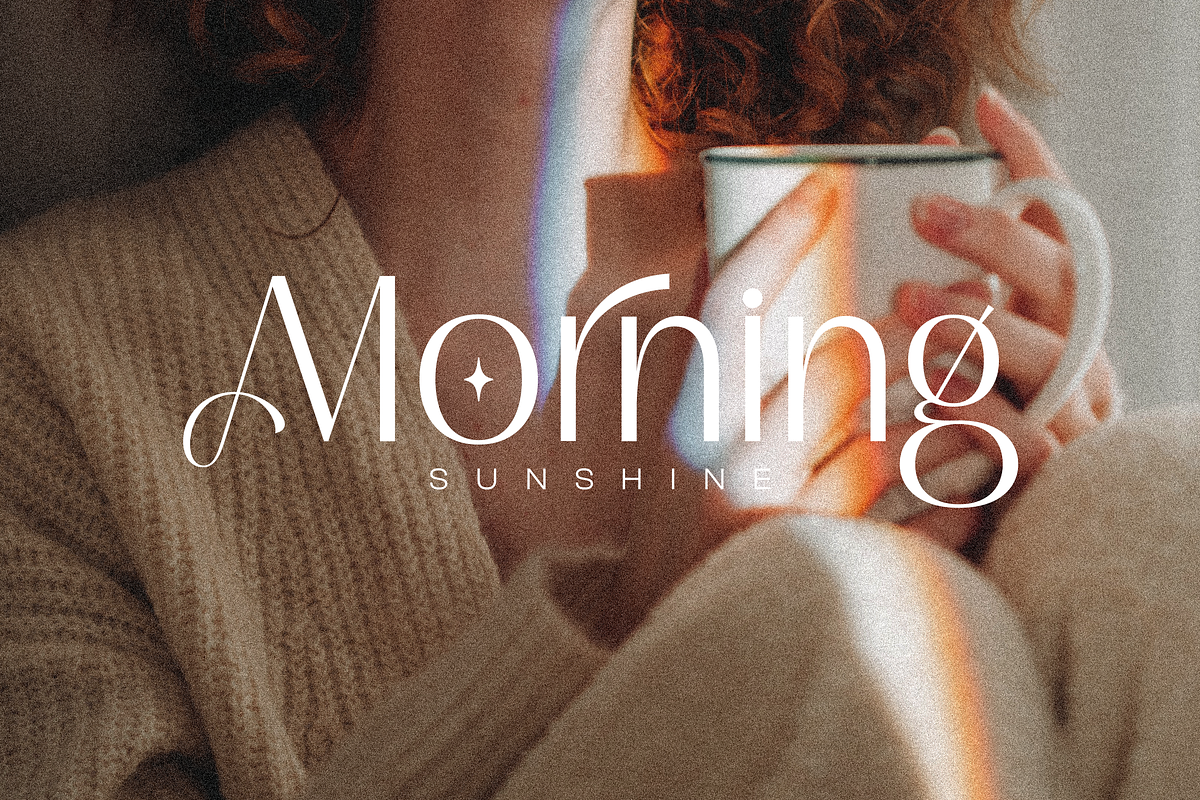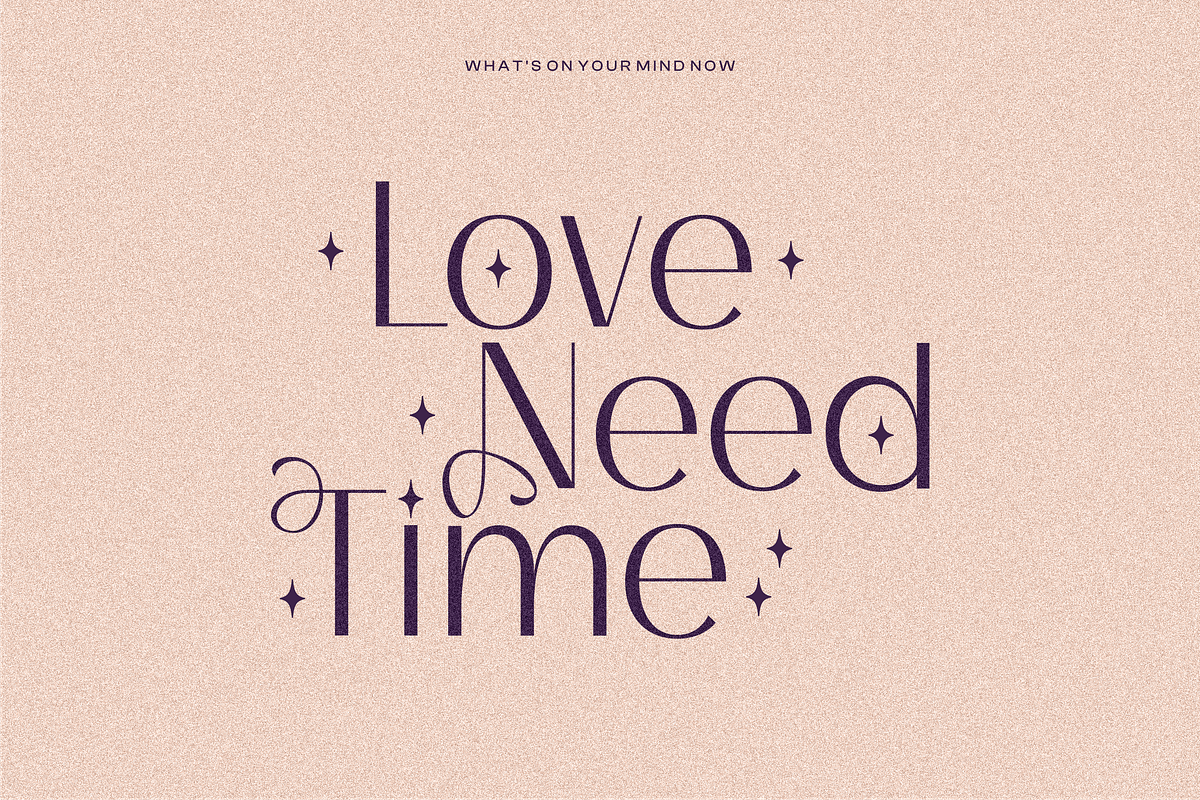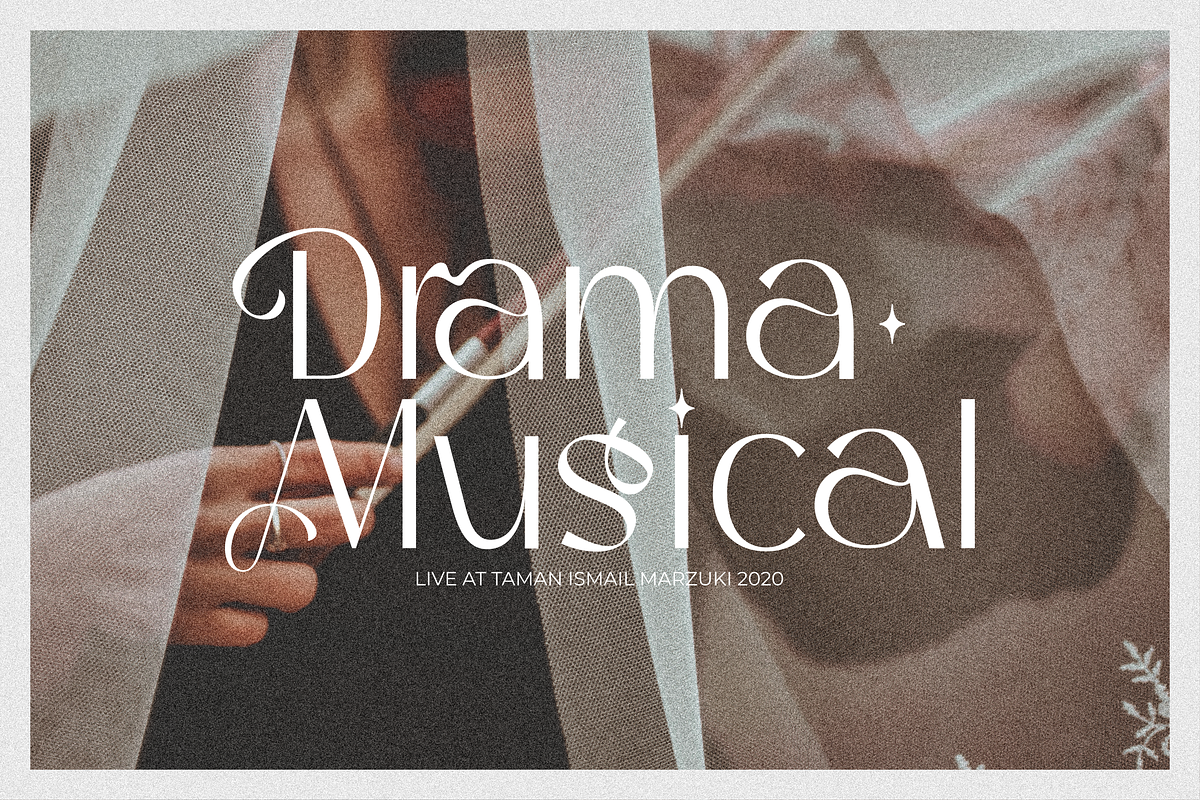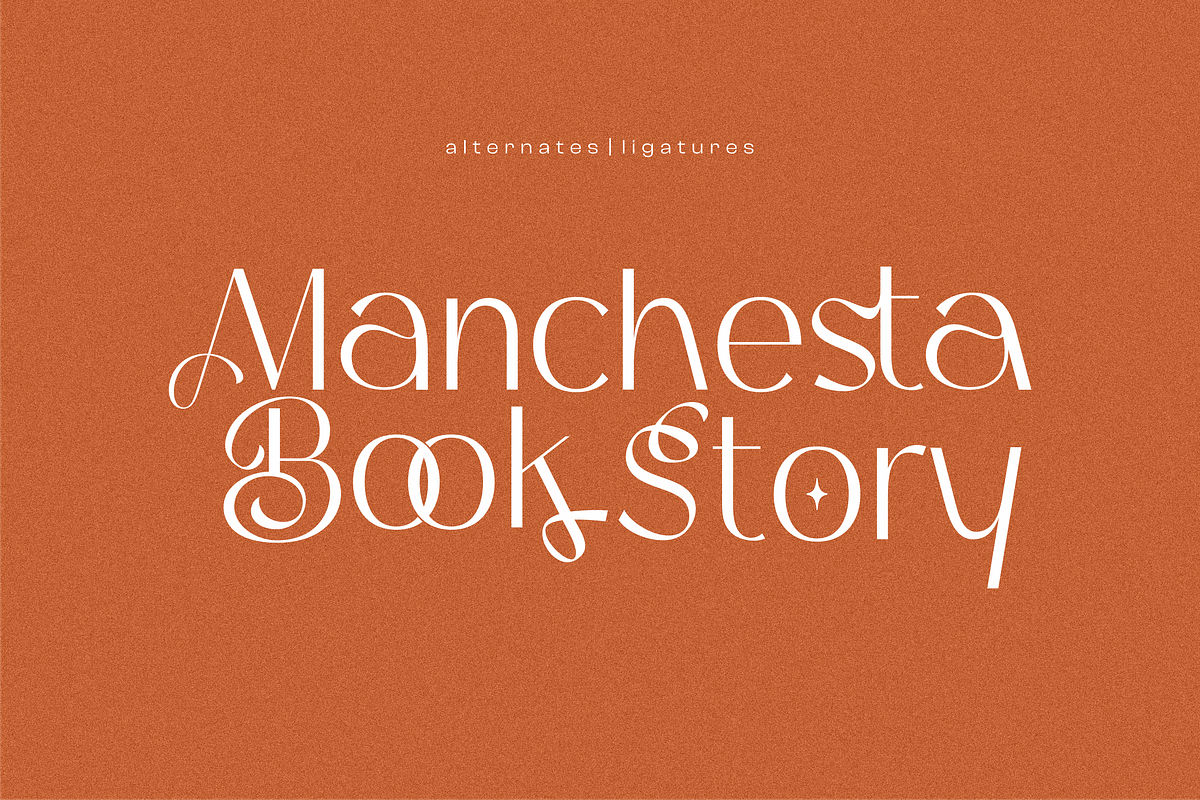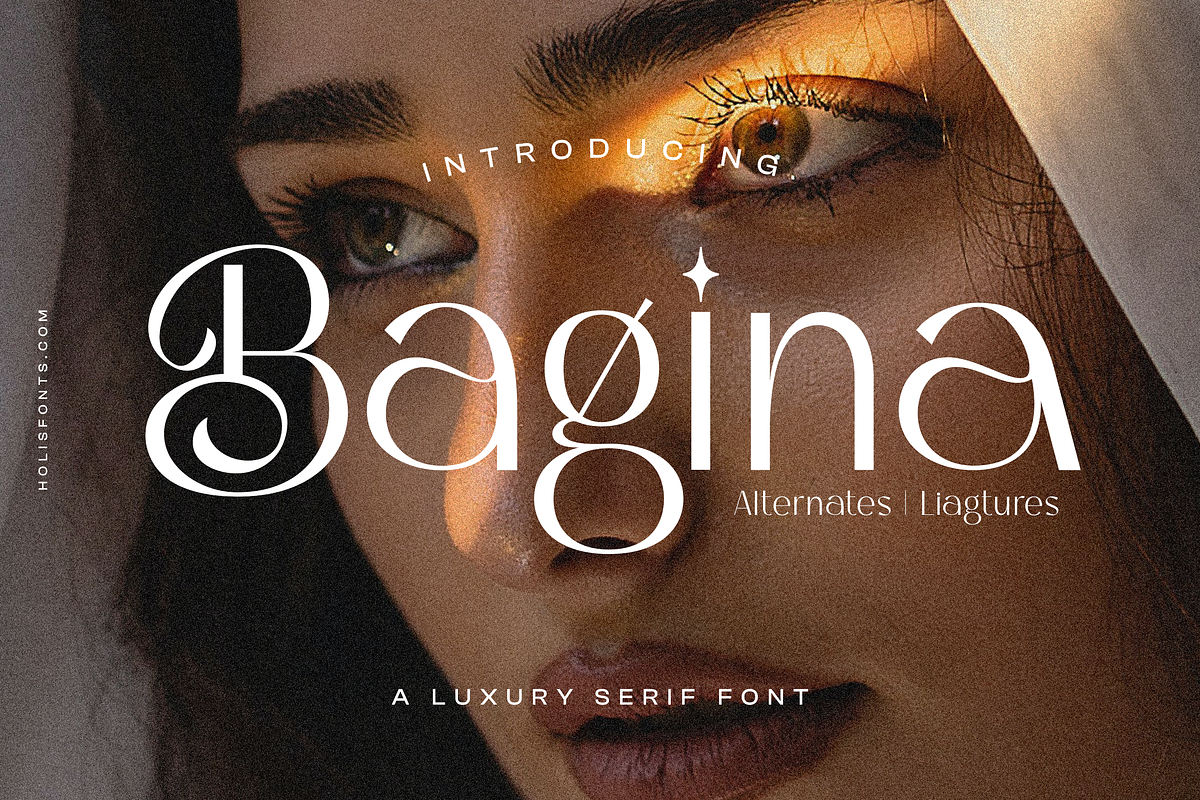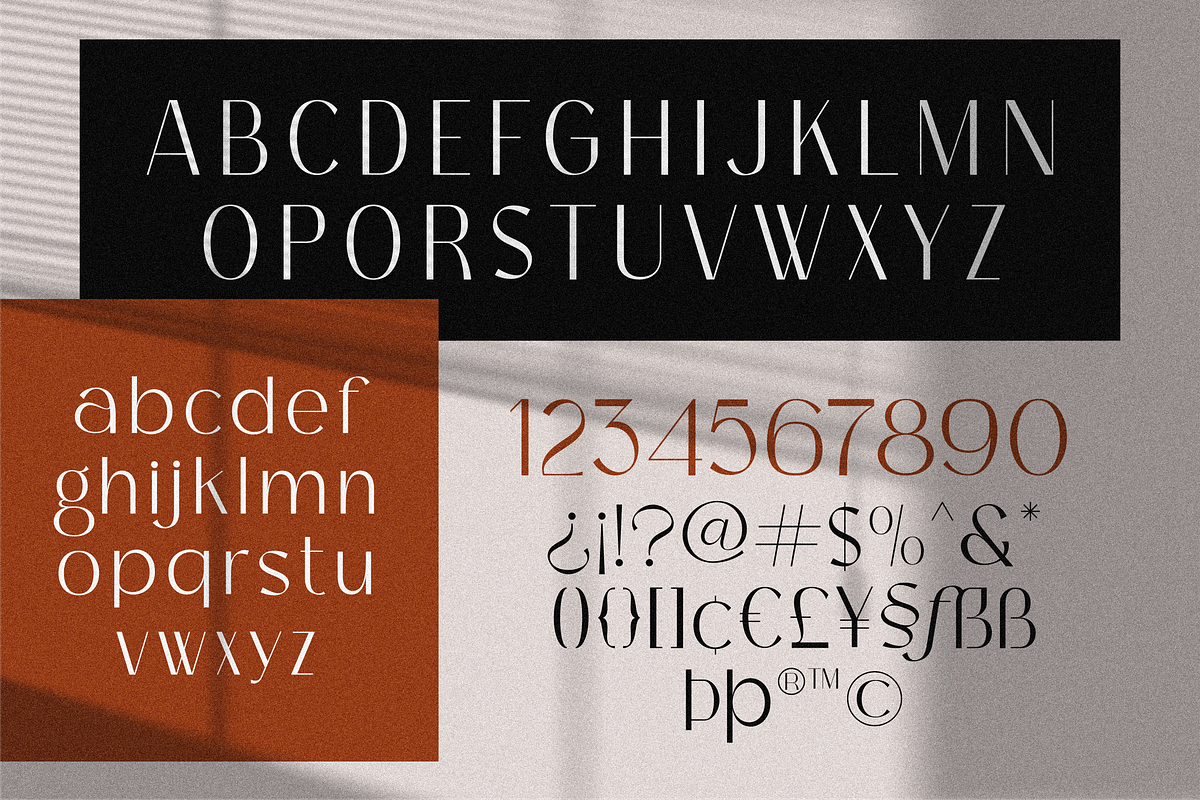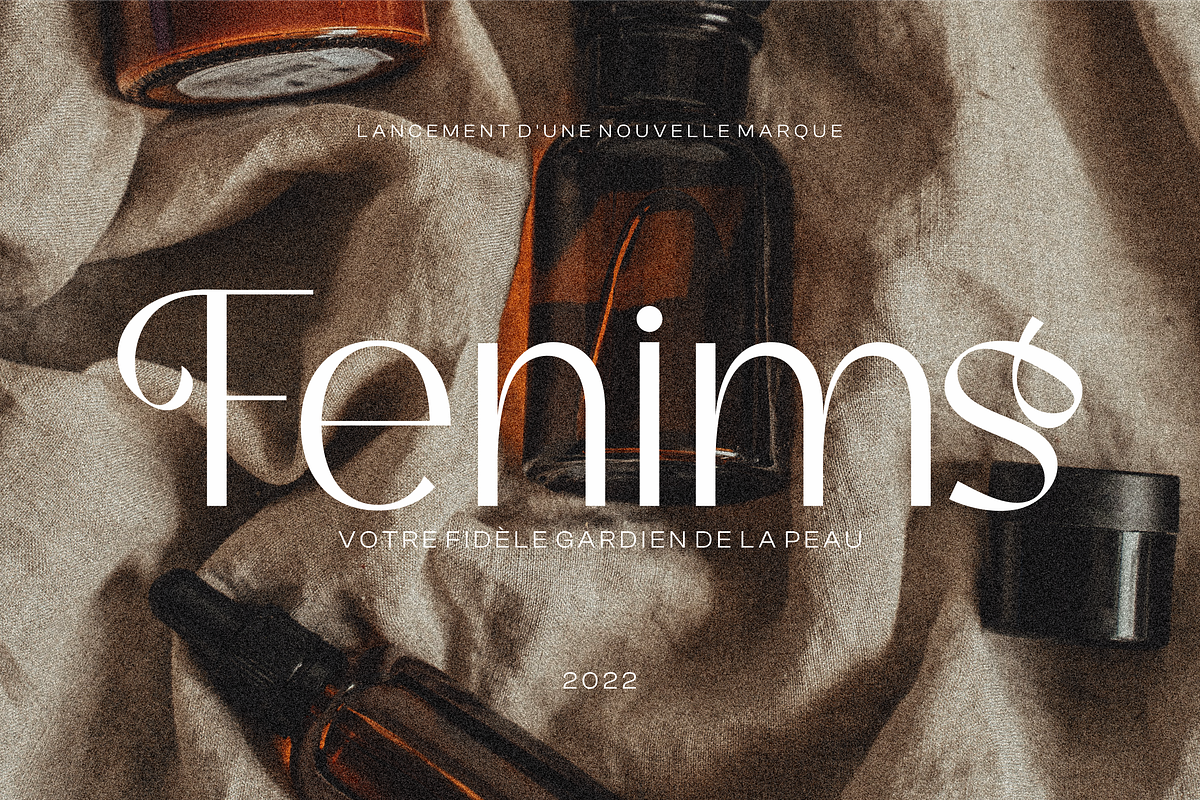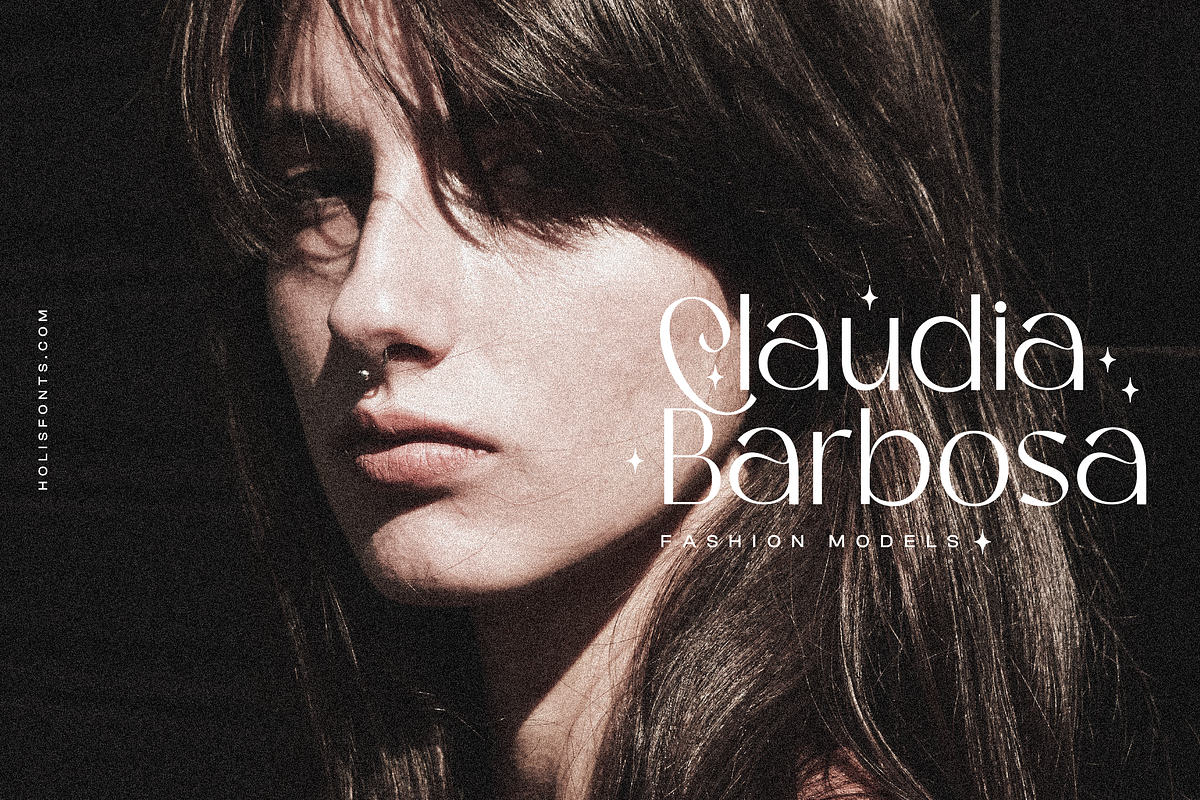
Bagina Serif
Bagina Serif.
Introducing a minimal and casual serif font with alternates and ligatures. This font brings a luxurious and clean style to your website, it can also be used as a brand logo such as fashion, jewelry, cosmetics etc.